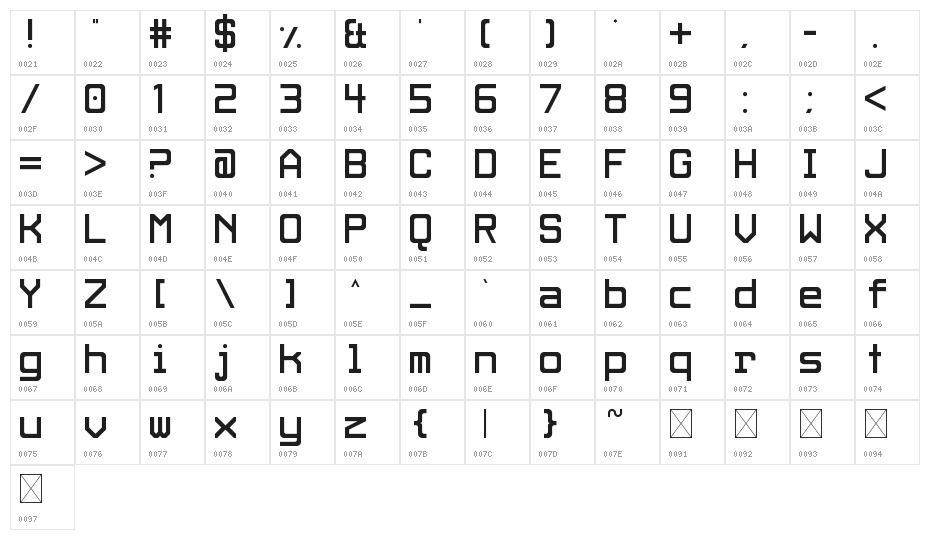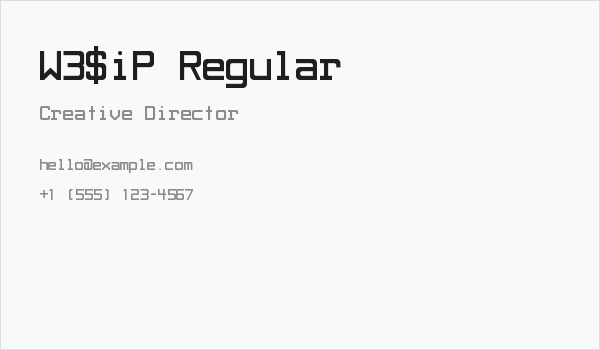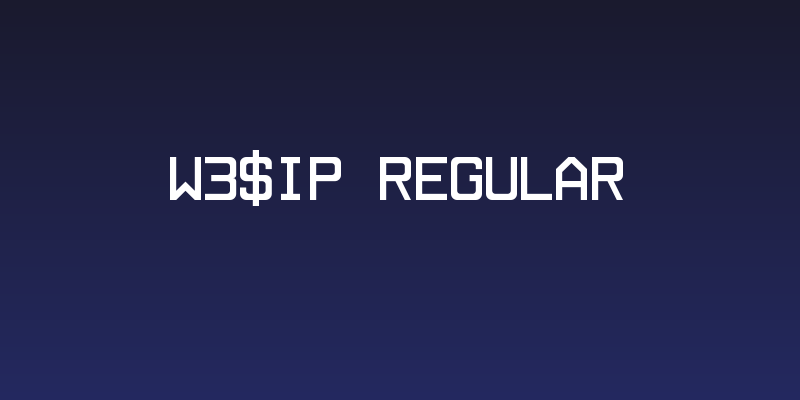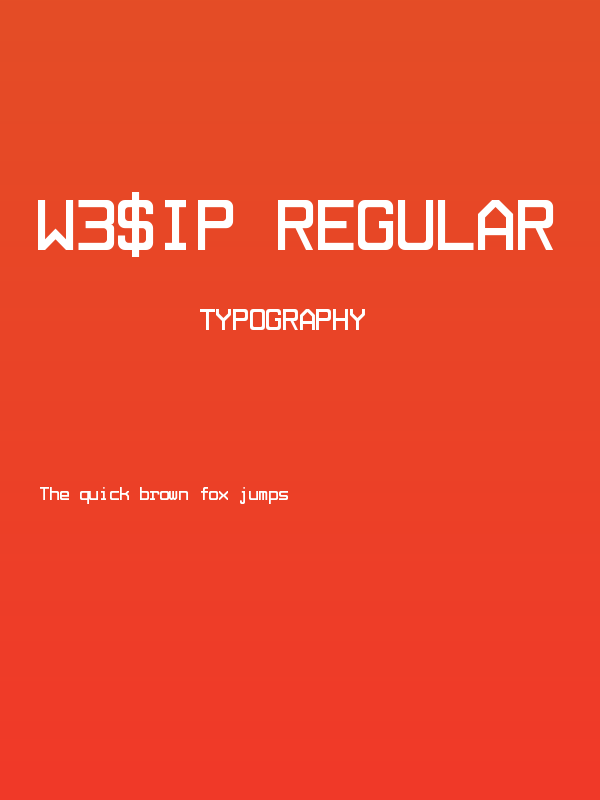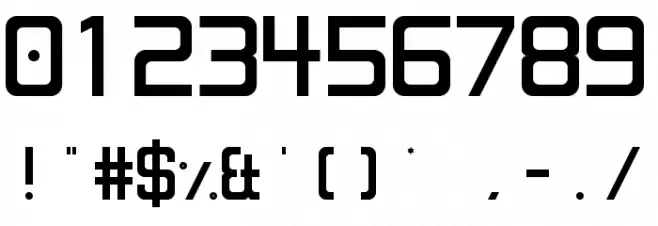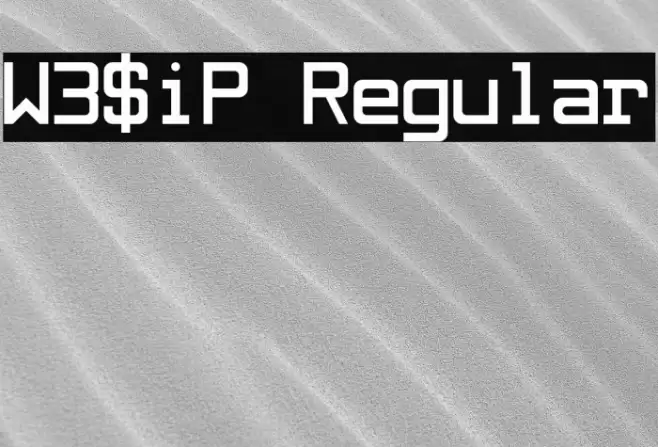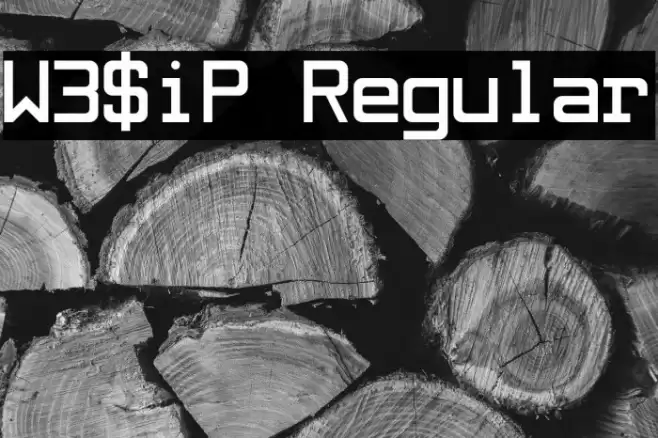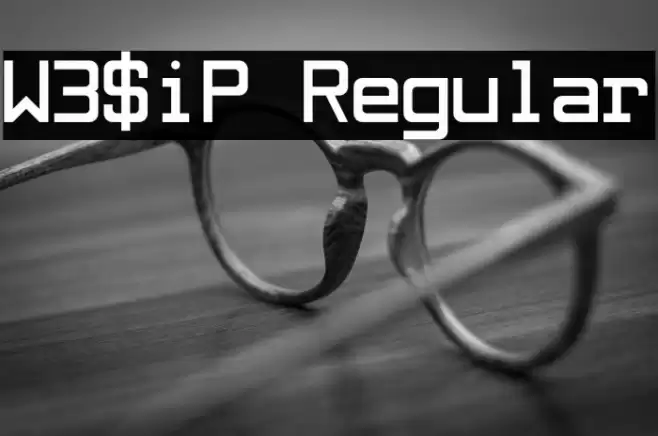
W3$iP Regular Font
W3$iP Regular Description
This font features a geometric and modern design with a distinct digital aesthetic. The characters are constructed with uniform stroke widths, giving it a monospaced appearance, though it is not strictly monospaced. The uppercase letters have a blocky, angular style, while the lowercase letters maintain a consistent structure with rounded edges that soften the overall look. The numerals are clear and legible, matching the style of the alphabetic characters. Special characters are well-defined, maintaining the font's cohesive design. This font is suitable for digital interfaces, coding environments, and any project requiring a futuristic or technical feel.
| Use Case | Headlines, Logos, Digital interfaces |
| Proposed Projects | Ideal for digital interfaces, coding environments, tech branding, and futuristic designs. |